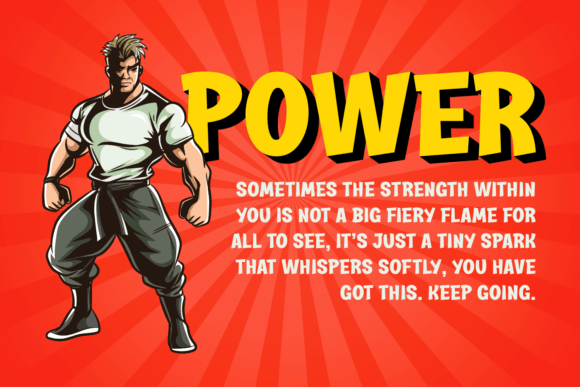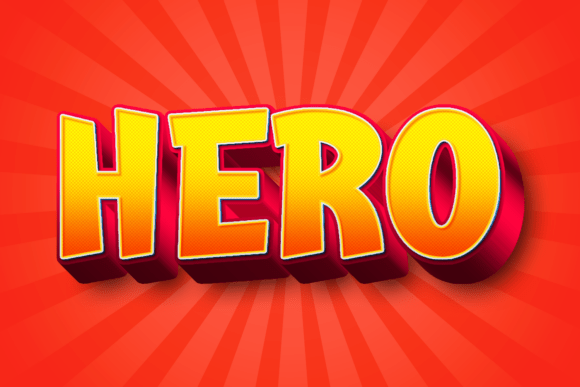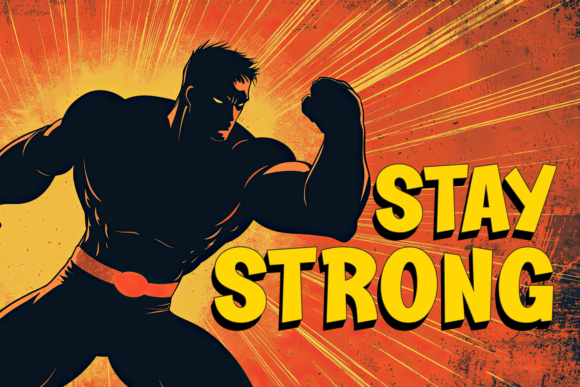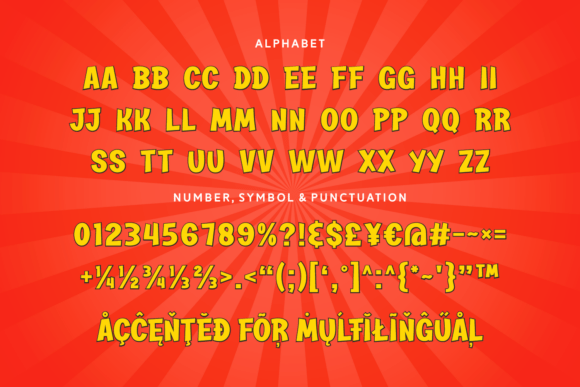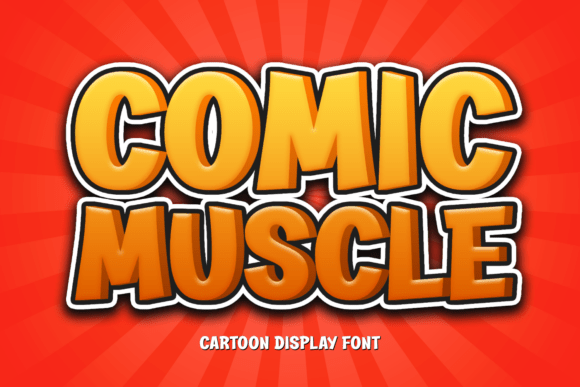
Unleash Your Creativity with Comic Muscle Font: A Quirky and Bold Display Font
Are you a designer or crafter looking for a font that adds a playful and fun touch to your creations? Look no further than Comic Muscle Font! This incredibly quirky and bold display font is perfect for cartoon-related designs, children’s games, and any project that requires a lovely and eye-catching element. In this article, we’ll dive into the features and benefits of Comic Muscle Font, and explore how you can use it to take your designs to the next level.
What is Comic Muscle Font?
Comic Muscle Font is a unique and attention-grabbing display font that’s designed to add a touch of playfulness and humor to your designs. With its bold and quirky style, this font is perfect for creating eye-catching headlines, titles, and text elements that will capture the attention of your audience. Whether you’re designing a logo, a poster, or a children’s book, Comic Muscle Font is an amazing choice.
Key Features of Comic Muscle Font
- Quirky and Bold Style: Comic Muscle Font features a unique and bold style that’s perfect for creating eye-catching text elements.
- Playful and Fun: This font is designed to add a playful and fun touch to your designs, making it perfect for cartoon-related designs, children’s games, and more.
- Highly Versatile: Comic Muscle Font can be used for a wide range of design projects, from logos and posters to children’s books and more.
- Easily Customizable: This font is highly customizable, allowing you to adjust the size, color, and style to fit your design needs.
Benefits of Using Comic Muscle Font
So why choose Comic Muscle Font for your design projects? Here are just a few benefits of using this amazing font:
- Adds a Touch of Personality: Comic Muscle Font adds a unique and playful touch to your designs, helping to set them apart from the crowd.
- Perfect for Cartoon-Related Designs: This font is specifically designed for cartoon-related designs, making it a great choice for animators, cartoonists, and designers.
- Increases Engagement: The playful and fun style of Comic Muscle Font can help increase engagement and capture the attention of your audience.
How to Use Comic Muscle Font in Your Designs
Using Comic Muscle Font in your designs is easy! Here are a few tips to get you started:
- Pair with Other Fonts: Comic Muscle Font pairs well with other fonts, so don’t be afraid to experiment with different combinations.
- Adjust Size and Color: Adjust the size and color of the font to fit your design needs and style.
- Use for Headlines and Titles: Comic Muscle Font is perfect for headlines and titles, so use it to add a touch of personality to your text elements.
- Experiment with Different Effects: Don’t be afraid to experiment with different effects, such as shadows, outlines, and textures, to add depth and interest to your designs.
In conclusion, Comic Muscle Font is an incredibly quirky and bold display font that’s perfect for designers and crafters looking to add a playful and fun touch to their creations. With its unique style, versatility, and ease of use, this font is an amazing choice for cartoon-related designs, children’s games, and any project that requires a lovely and eye-catching element. So why wait? Download Comic Muscle Font today and start unleashing your creativity!